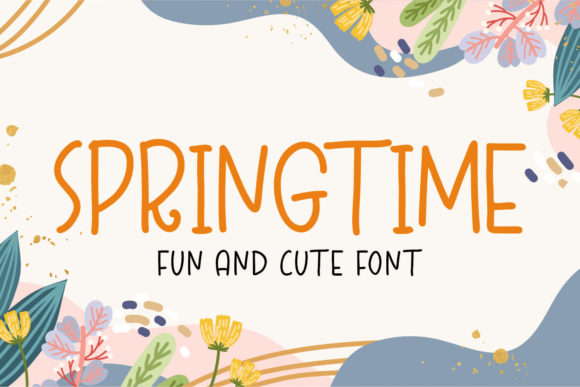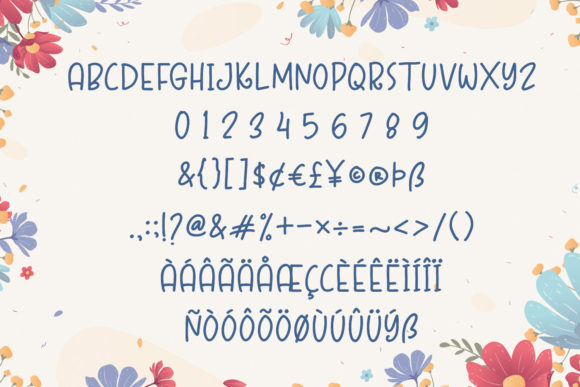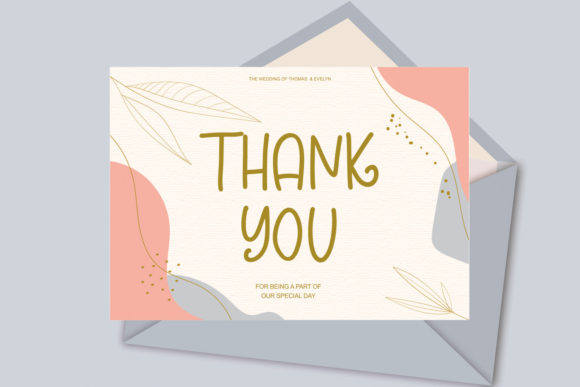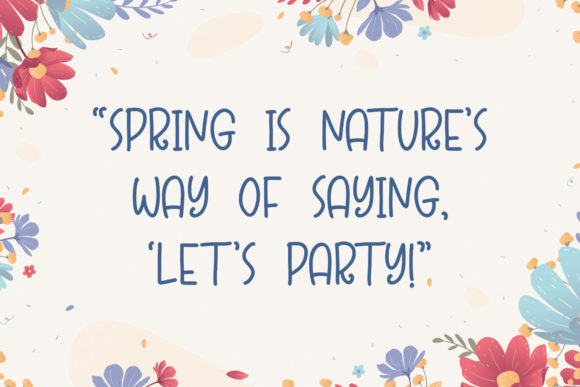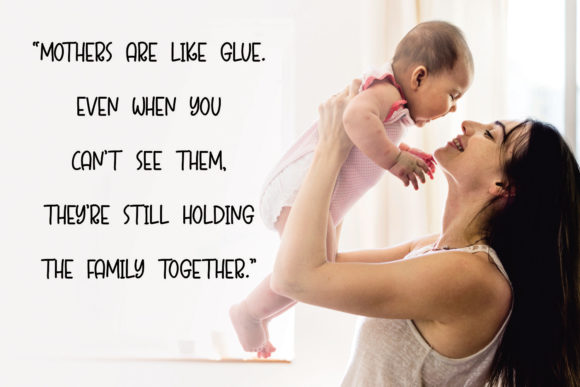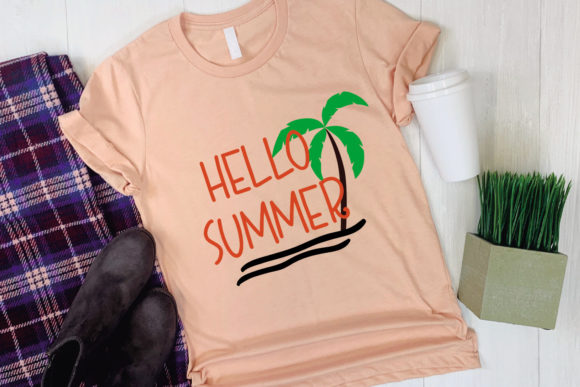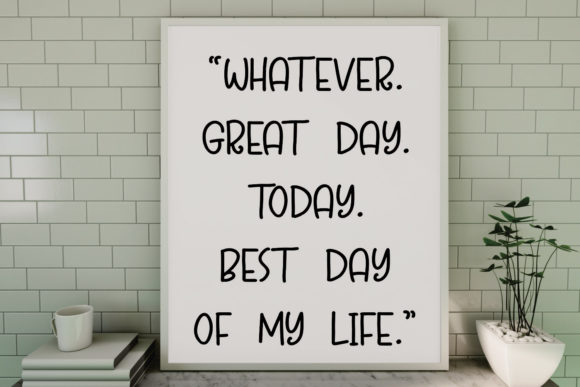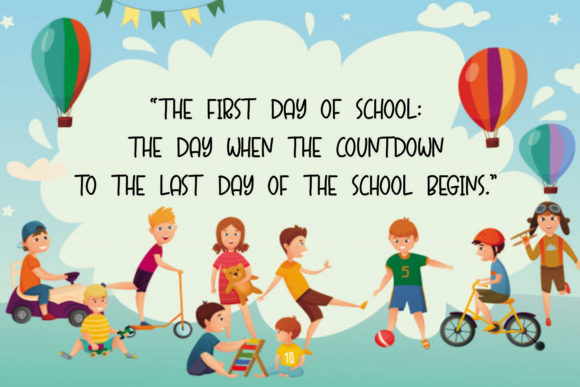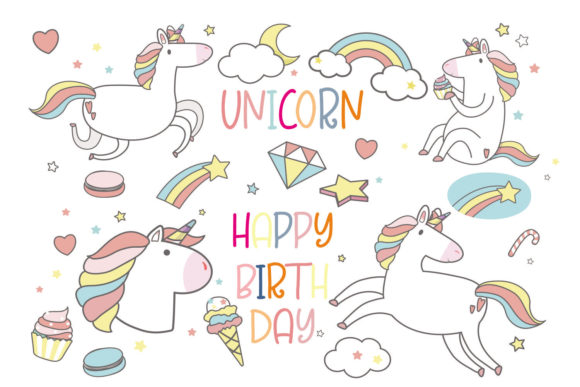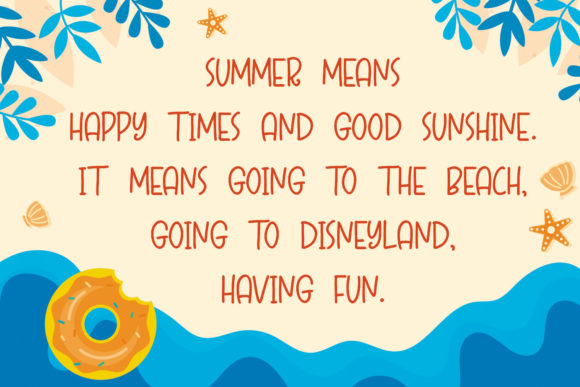
Springtime Font
About Springtime Font
Springtime is a cute, thin lettered and neat handwritten font, that can be used for all chalkboard quotes or teaching material! Its authentic handwritten look and feel will add a personal and realistic feel to your designs.